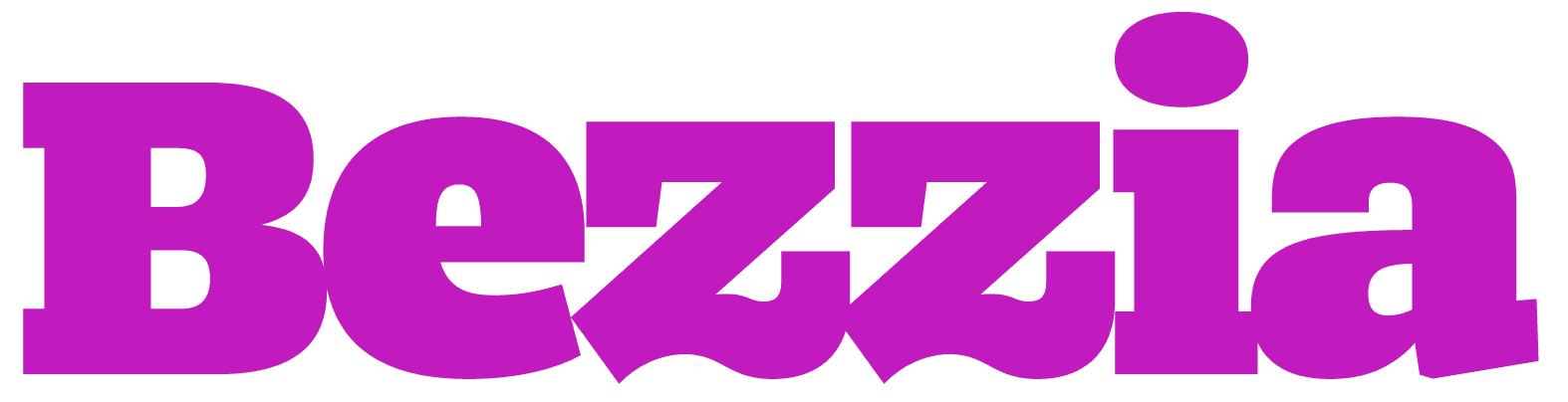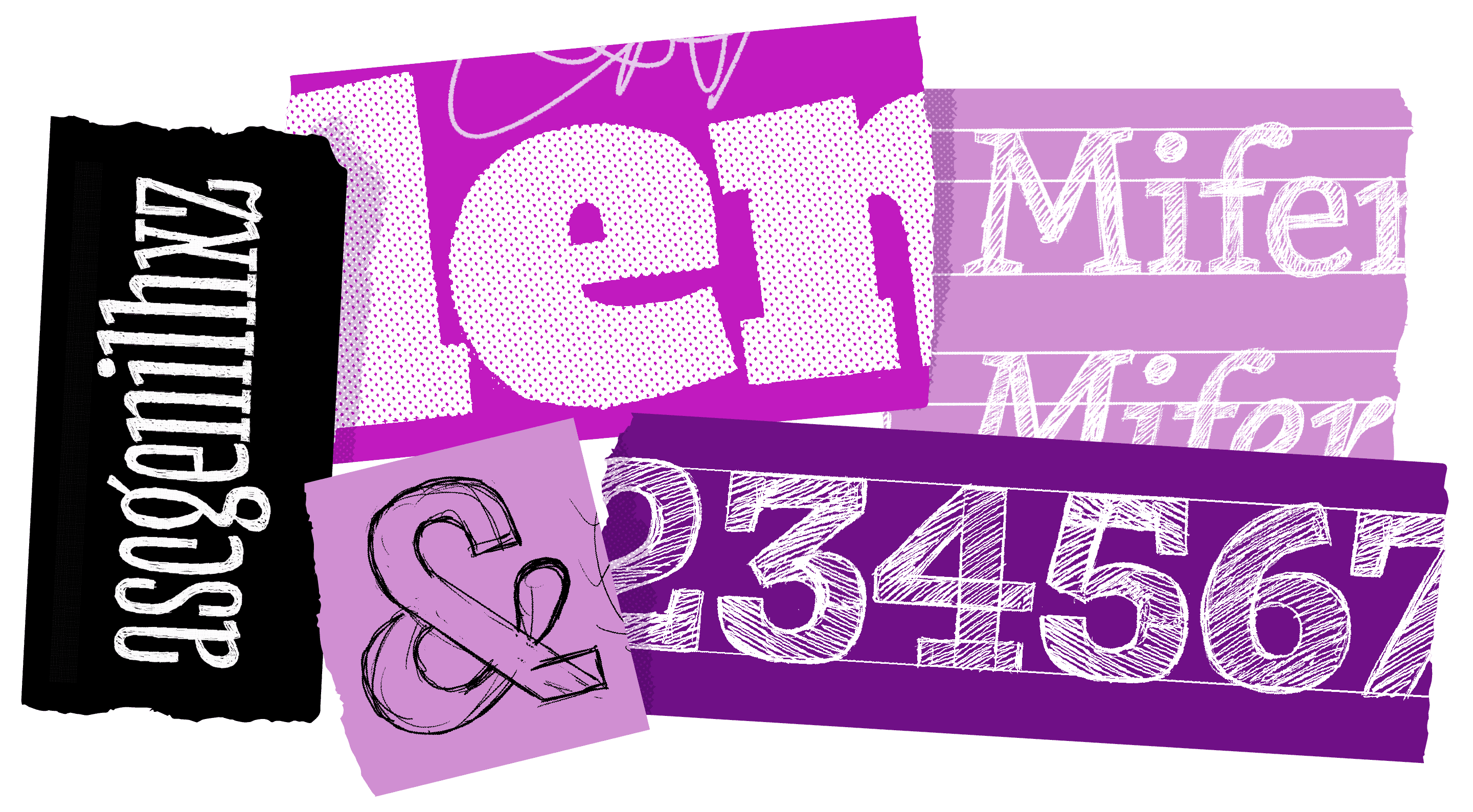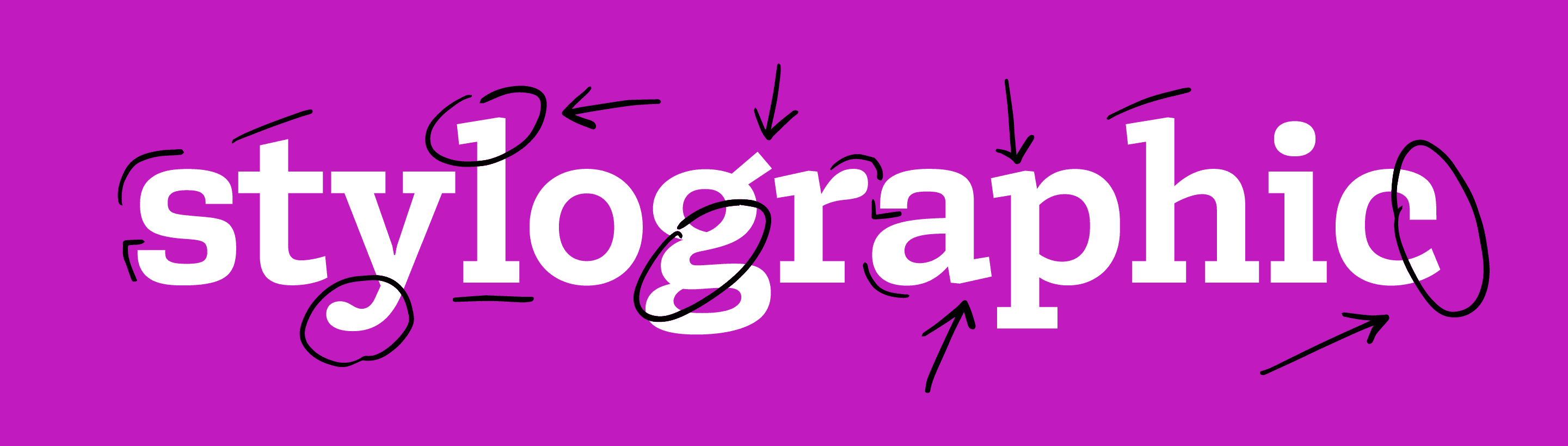
THE MAKING OF
A LETTERMATIC CASE STUDY: CALIFORNIA ACADEMY OF SCIENCES
by Riley Cran
Typeface design has a way of being constantly referential; we're always looking back to the past. Whereas graphic design is perhaps 200 years old (if we're being generous), the art of drawing Latin letters is easily 2000 years old. A 1,900 year old source, the Trajan Column, is still regularly referenced by modern typeface designers. In the 19th century, the Slab Serif was born, a new genre of serif with 'lower contrast' (less differentiation between thick and thin), and it has since become a mainstay of our typographic repertoire. The SONY and I ❤️ NY logos wouldn't be quite the same if they were not set in Slab Serifs, for instance.
My journey to designing a new Slab Serif called Bezzia began in 2017. I received an email from Laurel Allen and Kristina Fong at the California Academy of Sciences. Founded over 160 years ago, the California Academy of Sciences is one of the most respected natural history museums on the planet, and their beautifully designed location in San Francisco's Golden Gate Park houses an enviable collection of a particular sort. Whereas I sometimes think I am peculiar for cataloging hundreds of books on type and lettering on the walls of my home, I am outdone significantly in niche collecting by the Academy, whose many collections contains literally millions of ... dead things in jars. Put another way, they are scientific specimens of animals, insects, birds, deep-sea fish, and essentially anything you can imagine that once walked the Earth, soared in the skies, or swam in the ocean. Together, their 46 million specimens add up to a critical record of life on Earth, which scientists use to better understand and protect biodiversity around the world.
Many of the animal specimens are preserved in alcohol, inside jars on carefully organized storage shelves in their massive special collections. You can't really label the exterior of a jar of alcohol, without the alcohol eventually finding a way to separate a jar from its adhesive label. As a solution, they've stored the tags and descriptive info, often thermoprinted on paper, directly in the alcohol itself with the specimen. And the industry term for the most important of these specimens—the ones that define and establish new species—is, funnily enough, ‘type specimen.’
FIG. 1 — Illustration by Marisol Ortega
Laurel and Kristina had come to realize that alongside amassing this world-class collection of natural history artifacts and 'type specimens,' they had indirectly assembled another 'type specimen' collection: the letters themselves. Going back nearly 200 years, these letters inside the jars float with star fish, octopus, snakes, and lizards. Laurel and Kristina wondered if there might be an opportunity to design new typefaces inspired by these various labels and letterforms; naturally, I was excited at the prospect immediately.
FIG. 2 — Illustration by Marisol Ortega
Often typeface designers can be found taking photographs of the letters above a building entrance, or of an old sign weathered on the side of a building, and are used to getting odd looks. I imagine the staff at Cal Academy weren't used to hearing designers say they would like to see the tiny labels in the jars, rather than the 'lure' of an Anglerfish. But at each department of the Special Collections, the staff were warm and welcoming, giving us a wonderful tour and helping us find what we were after. Initially I thought 'they must never open these jars right?', only to see Ichthyology Sr. Collections Manager Dave Catania immediately open a jar and pull out a fish, reaching down for the paper tags in the bottom of the jar, and laying them out on a table. Like the rings of a tree, you could follow the Academy's labelling back to the turn of the century. Typewritten tags, each adding some information, spanning back decade by decade, all left in the jar in a state of redundancy, each typeset differently.
FIG. 3 — Specimens found during the visit to Cal Academy.
Eventually we found our way to the entomology section (the study of insects), where Entomology Collections Manager Chris Grinter showed us a cabinet of specimens awaiting cataloging. In an institution this large, similar to the function of a very large library, it sometimes takes decades just to get around to identifying and filing a particular specimen in the right spot. It was in this cabinet the curator produced a box of newspaper scraps, each carefully folded into a sort of origami packet, sealed with a small piece of scotch tape. Left unopened since the 1960s, he began to open each of them, from which would fall a paper tag, and (in this case) a package full of dead insects. Turning over the paper label, we saw the typewritten description of which insects these were, where they were found, and by whom. The person who found them is apparently one of the most prolific Academy-related entomologists of his era, Mr. Paul H. Arnaud. Many of the insect specimens in their collection were caught by him, and apparently these newspaper scraps being provided by him came as no surprise to the Academy’s staff.
FIG. 4 — Ichthyology Sr. Collections Manager Dave Catania
FIG. 5 — Folded paper wrappers from the special collections.
FIG. 6 — The typewritten label that inspired Bezzia.
We saw so many intriguing letterforms on the visit, which lasted several days. We documented letters embossed in metal, old handwriting on ledgers, and even some obscure decorative metal type samples on the pages of a massive oology tome. Oology, I learned, is the study of eggs.
When I got home and reviewed the thousands of photographs we had taken on our cellphones, it ended up being the typewritten label accompanying the insects that stood out to me. I had never seen that particular typewriter face before, and I was intrigued by some of the characterful details it included. In particular, the letter 'a' had this funny, unusually characterful stance to it. In place of a traditional 'termination' at the top of of the 'a,' this design seemed to just have a big ol' hook, that dangled down. It had a sort of ... casual tone to it, while remaining very functional.
I wondered; was this the intent behind this 'a' drawing? Or was this something that happened coincidentally when the original idea of the typeface was coated in ink and crushed into a tiny paper label?
Typewriting has a way of turning subtle details into blobs of ink, and much of the subtlety of a typewriter typeface is translated by the medium, becoming rounded and blobby. These imperfections are so prevalent that many contemporary typewriter-inspired fonts try to mimic the printed result, rather than the original intent. I saw these letters a bit differently, and created a self-imposed brief: What if I were to imagine that the original design HAD intended for the 'a' to be casual, cheeky and characterful? And without consulting a specimen of this typewriter typeface, what if I took these forms on the paper tag as inspiration, and imagined the rest? What if I presumed the rest of the design had these sorts of details, too?